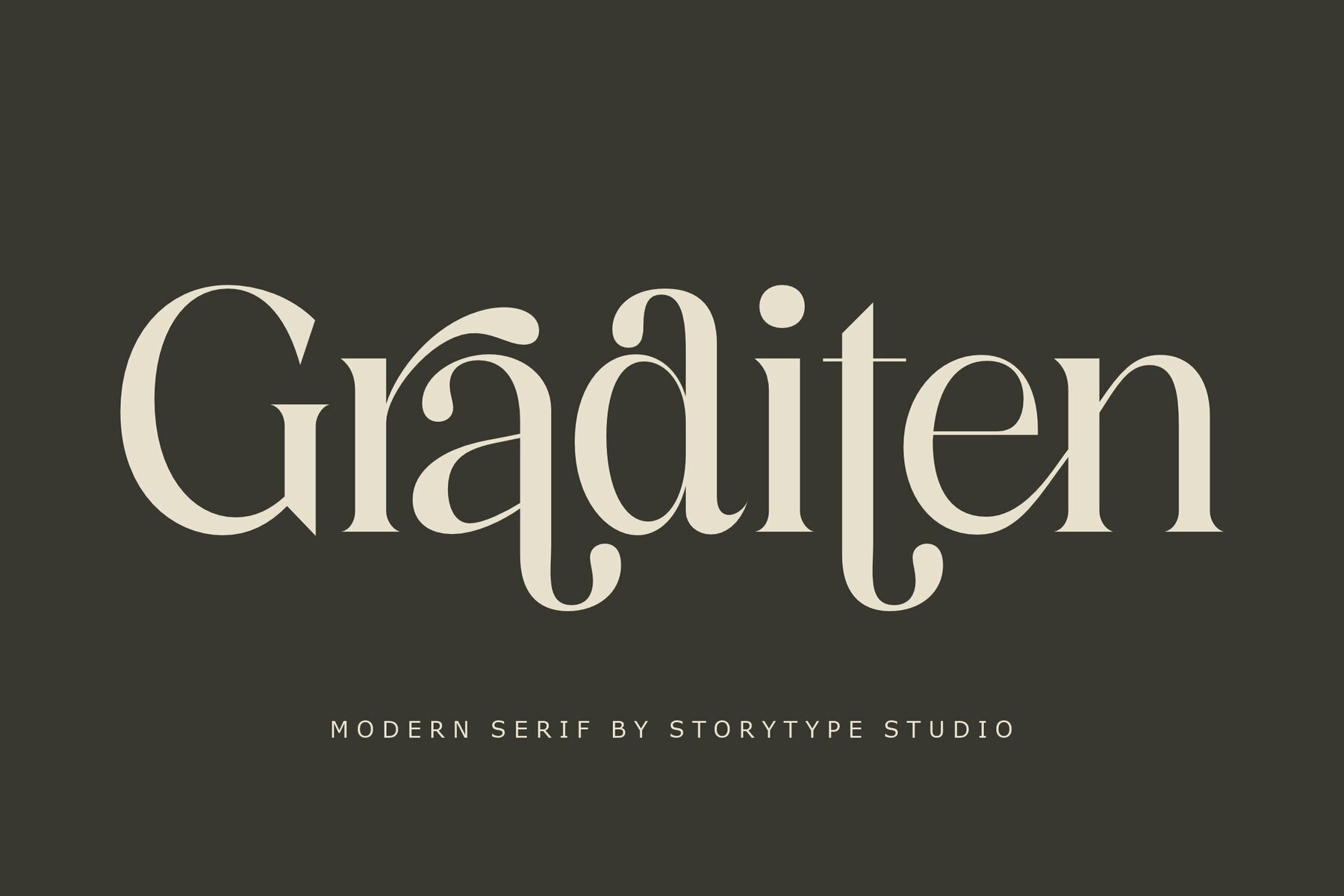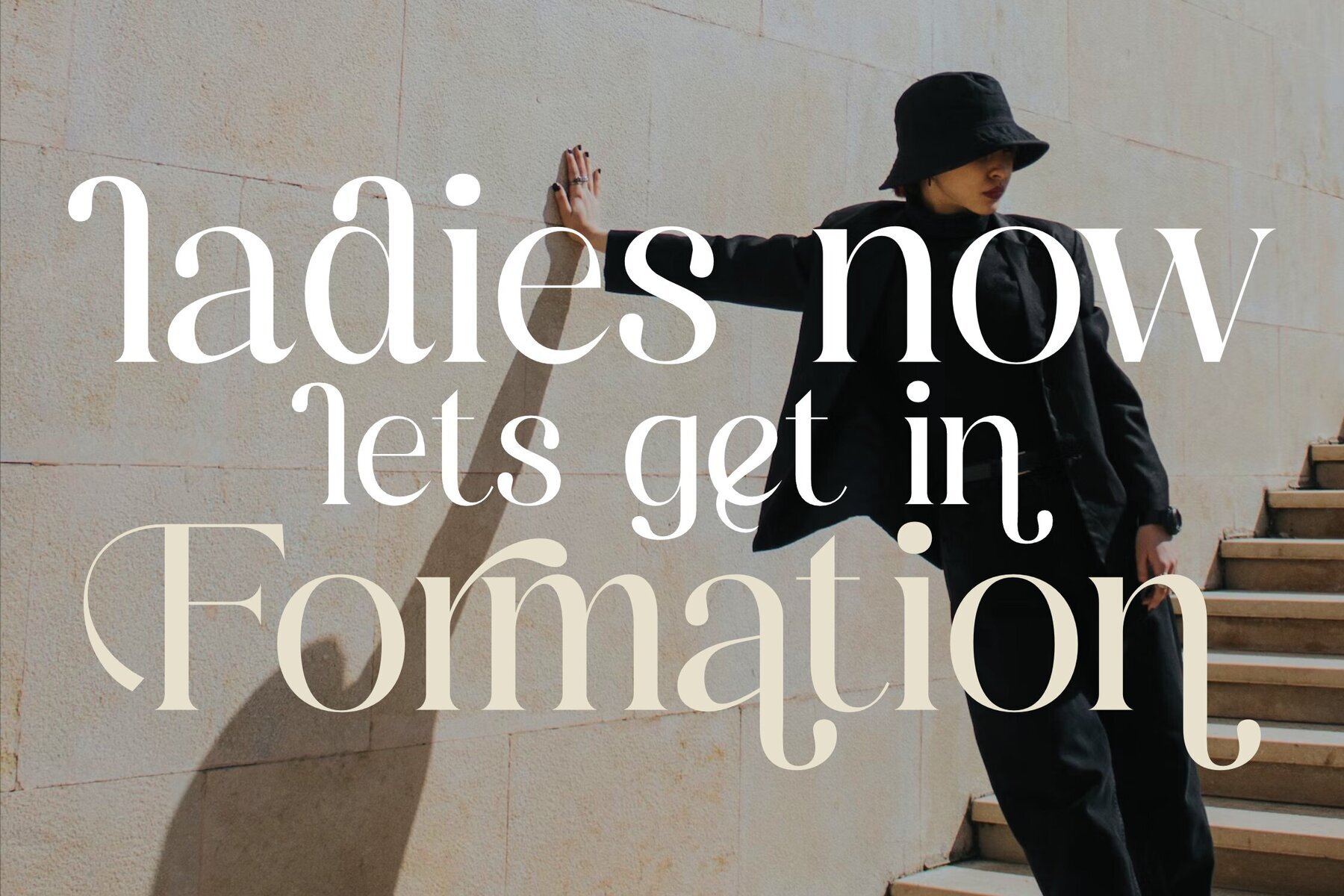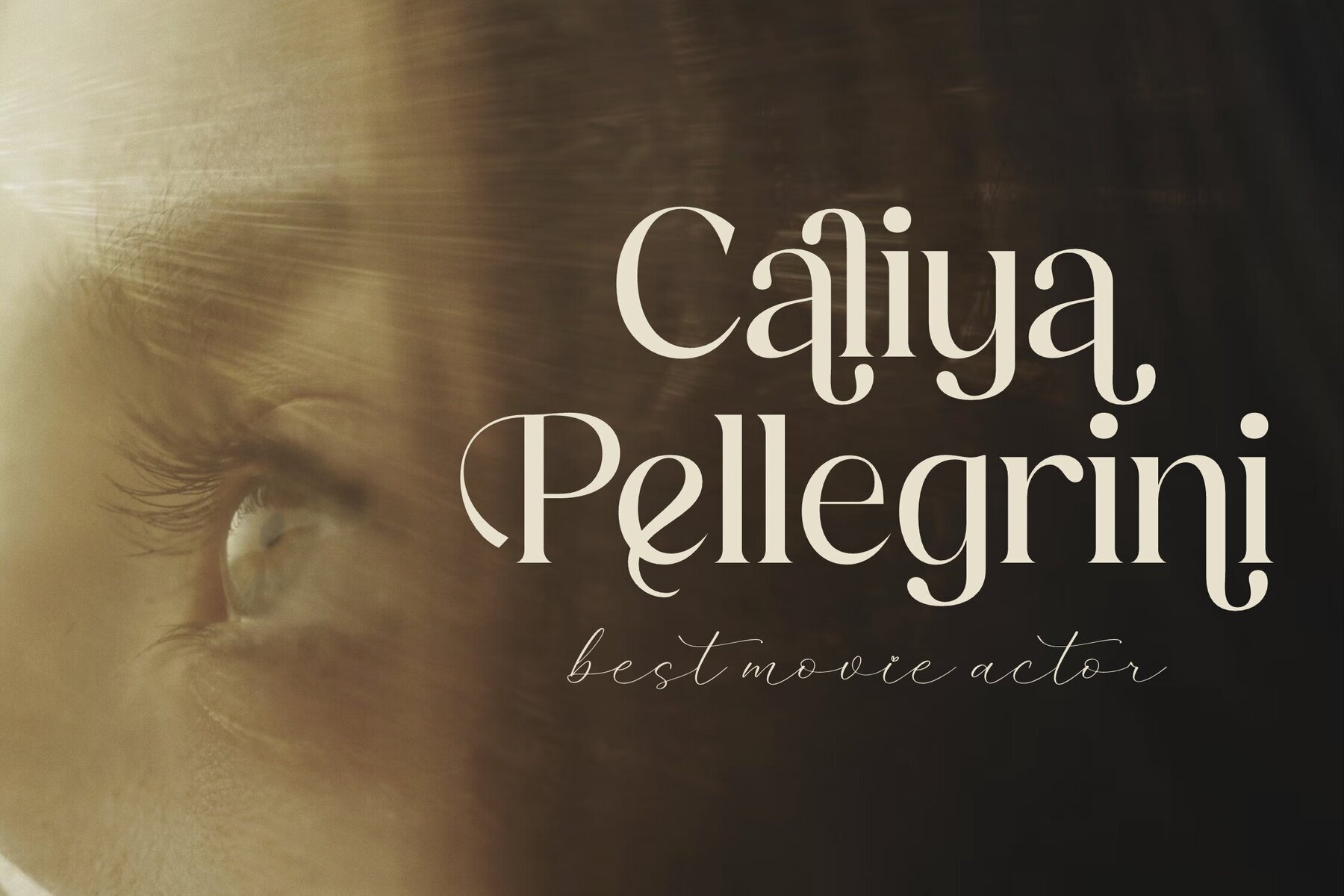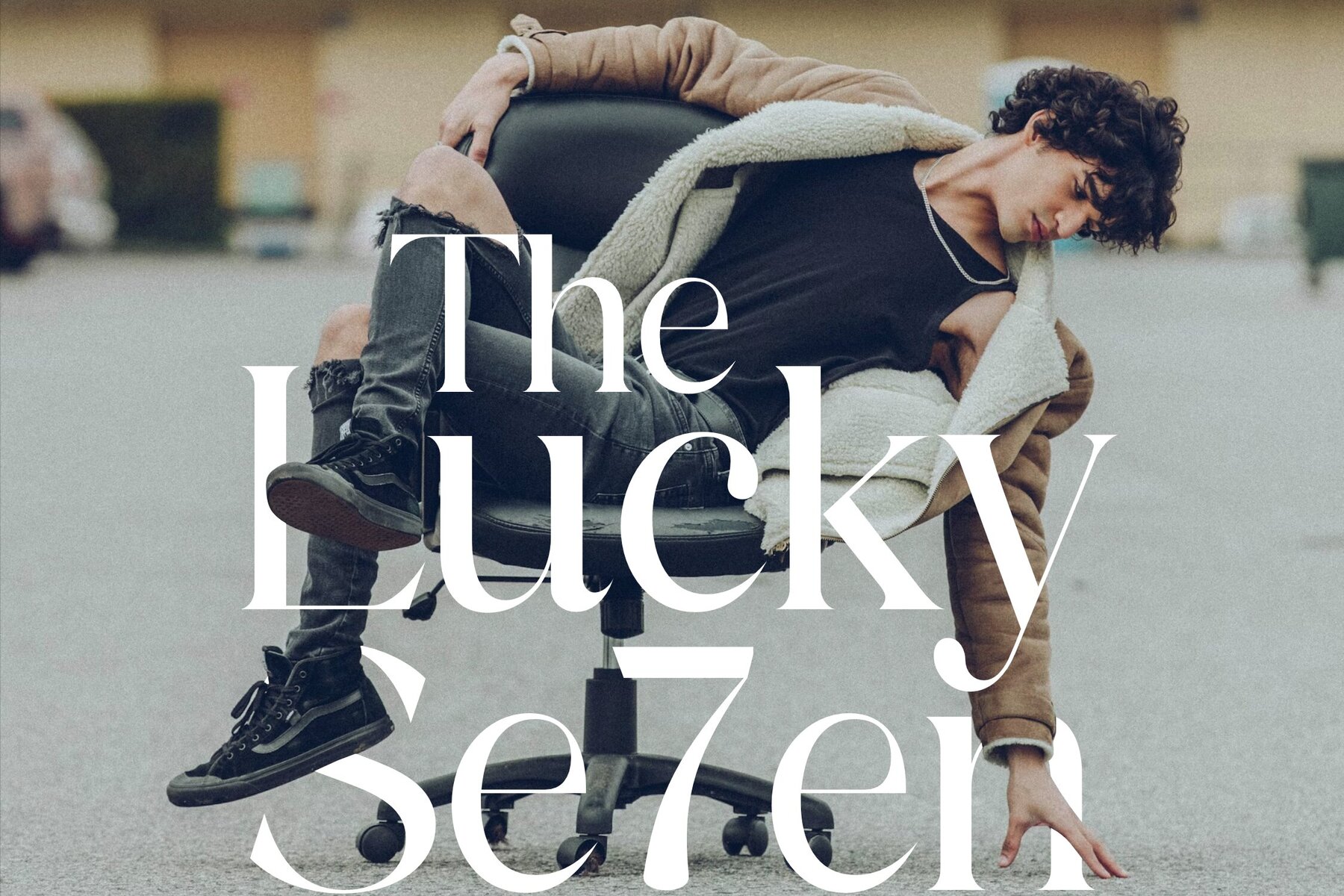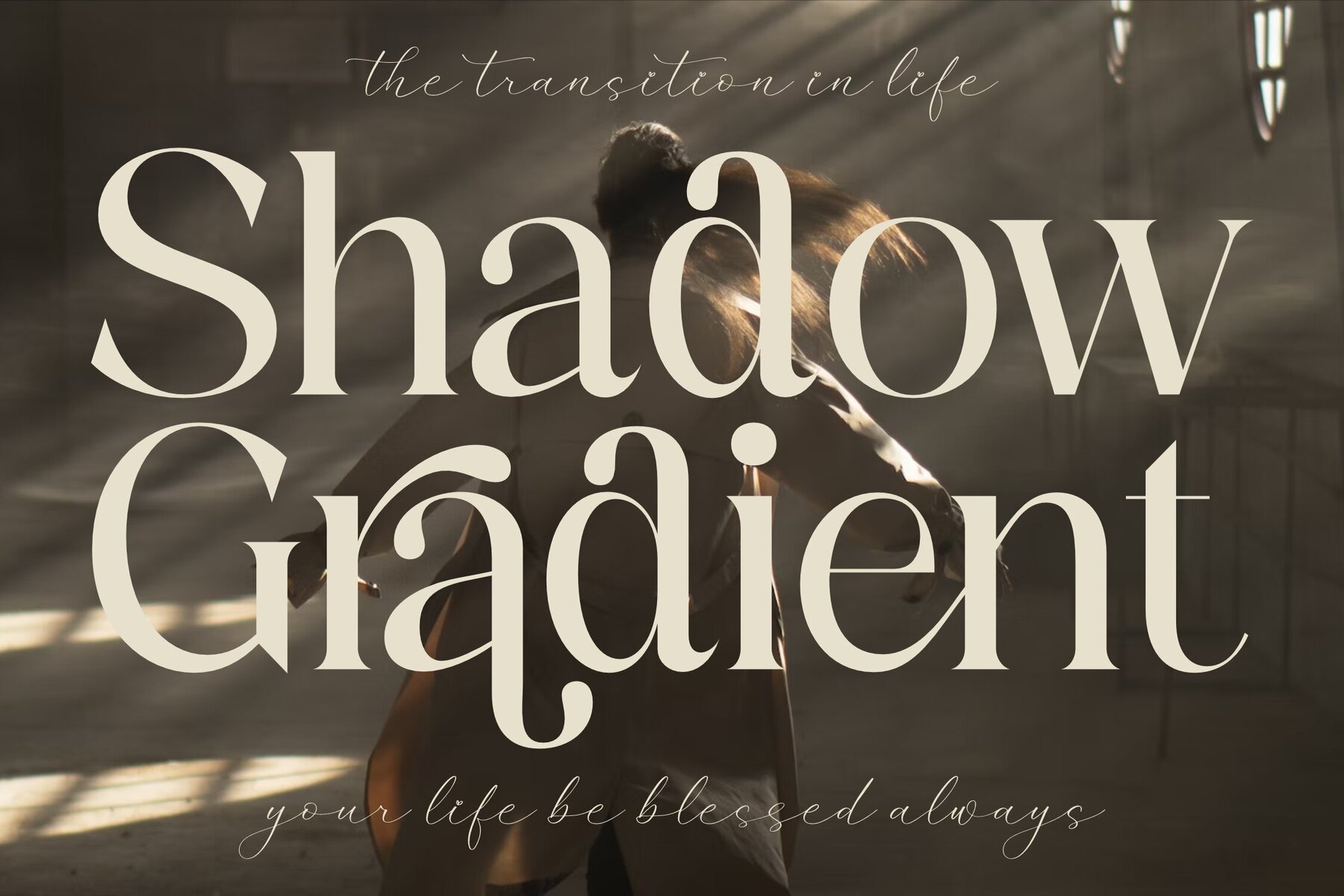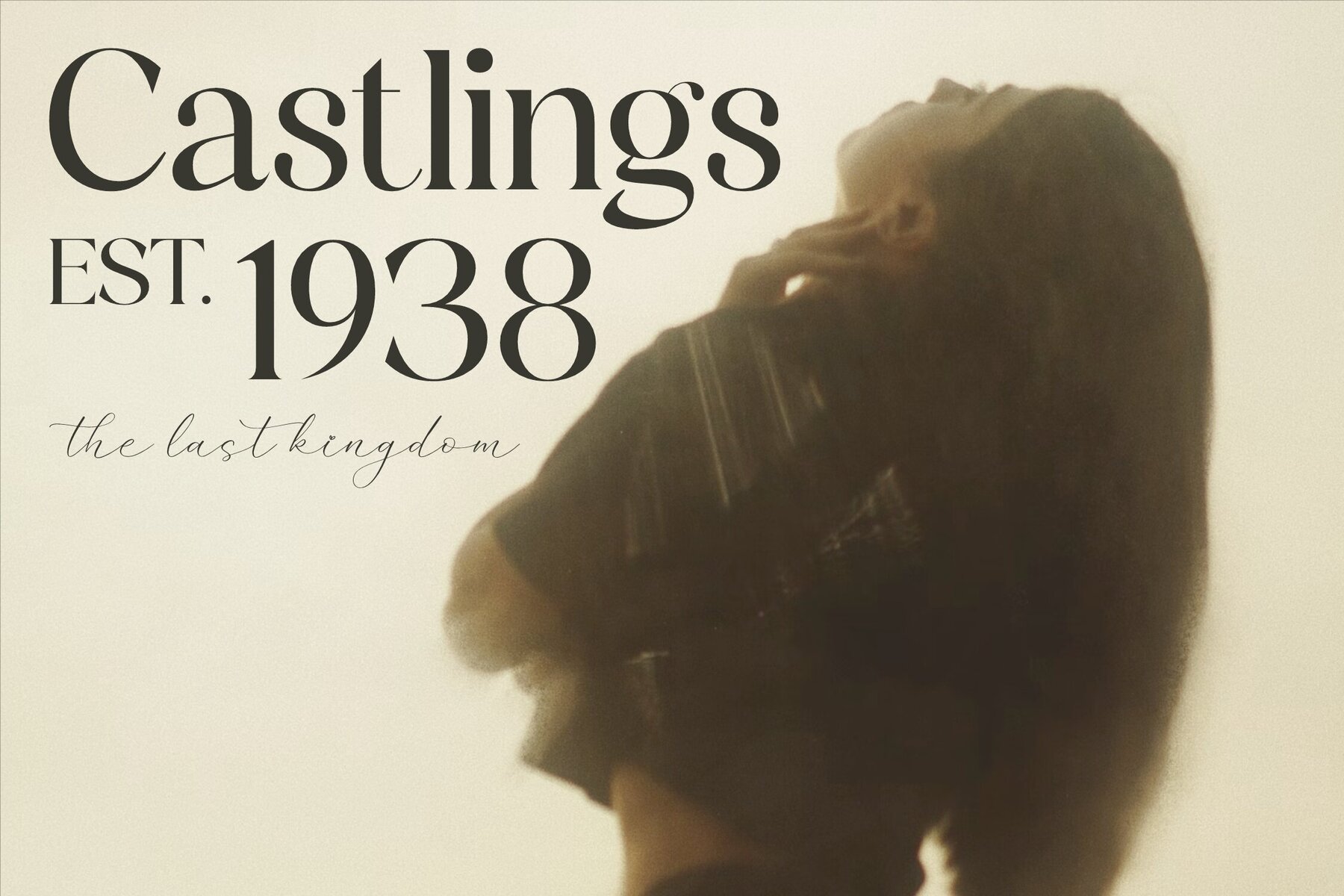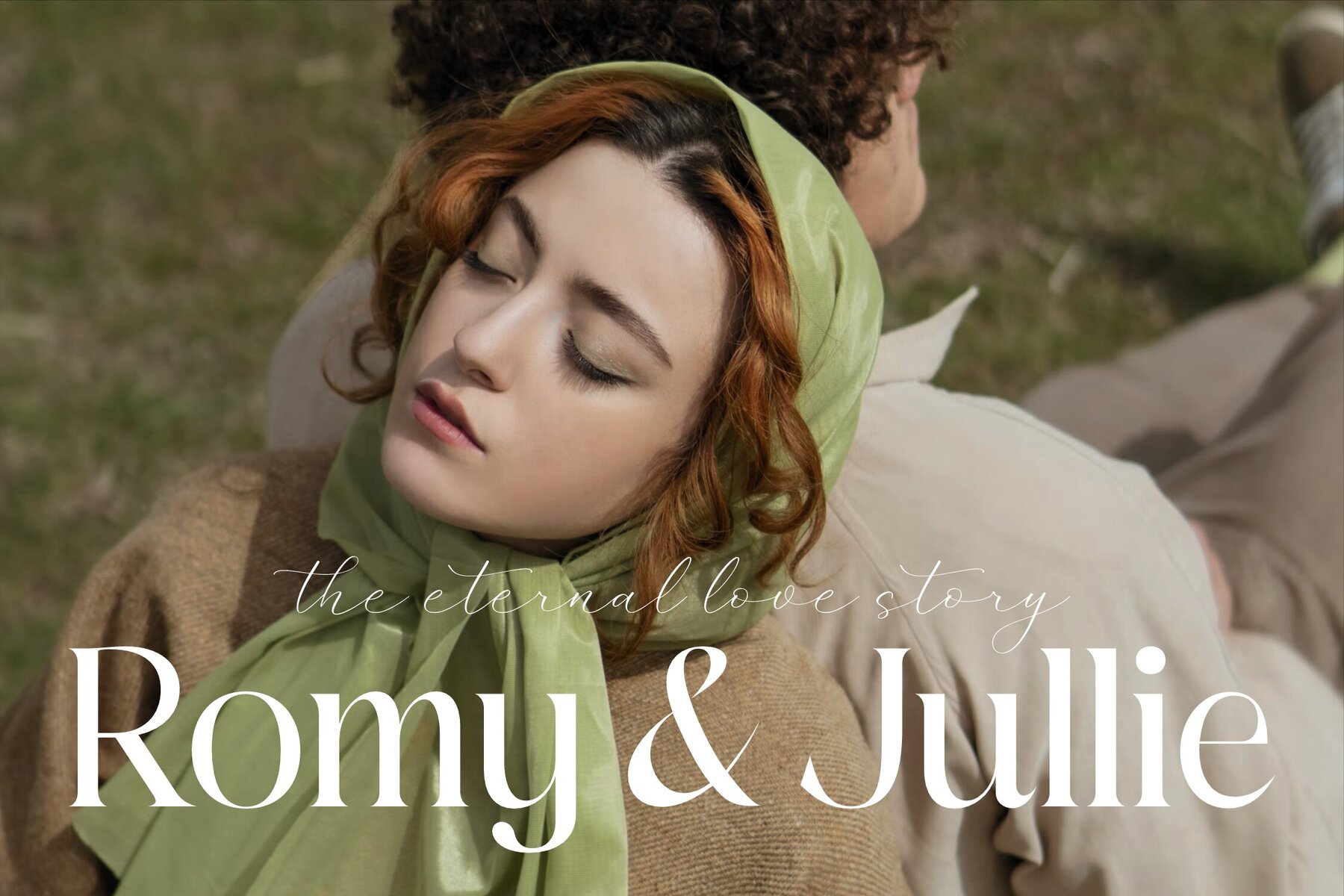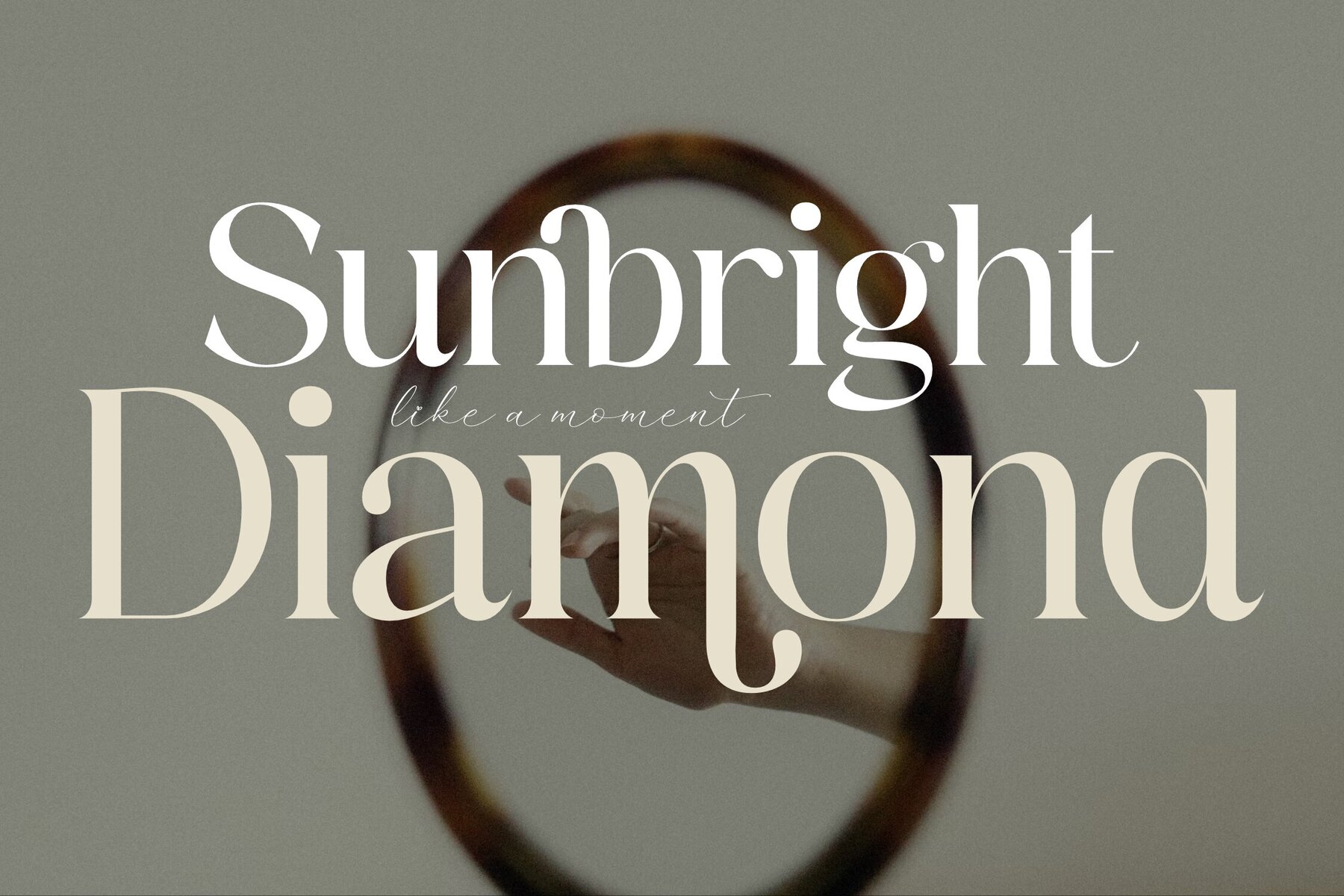
Graditen Font
Meet Graditen, a distinguished serif typeface that marries classic elegance with a modern flair. Its unique style is perfectly suited for those wanting to add a touch of luxury and sophistication to their designs. Whether you're crafting a chic logo, designing a book or movie title, or adding a stylish touch to a fashion brand, Graditen adapts seamlessly to a variety of creative projects. What makes Graditen a must-have asset? Elevate your design projects with Graditen's timeless appeal and robust features. Add it to your creative toolkit today and see the remarkable difference it can make.Graditen Typeface: Elegance Meets Versatility